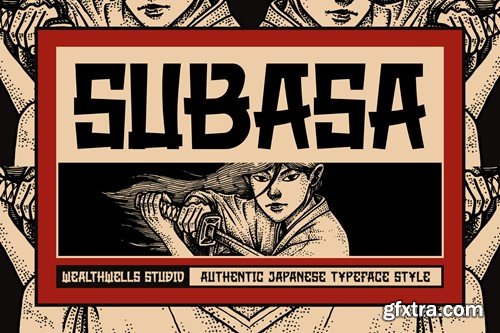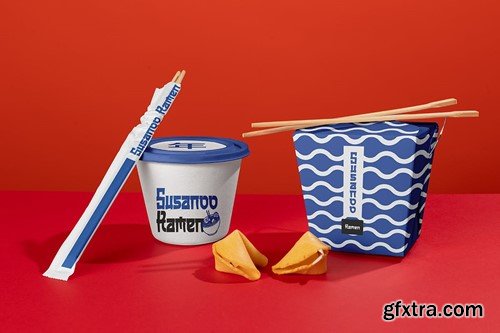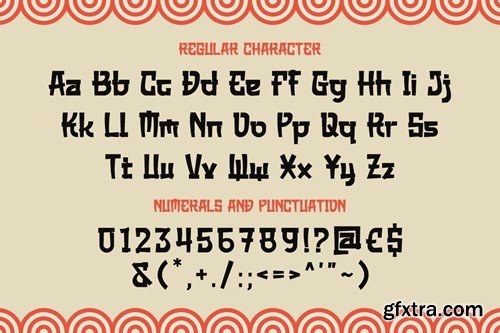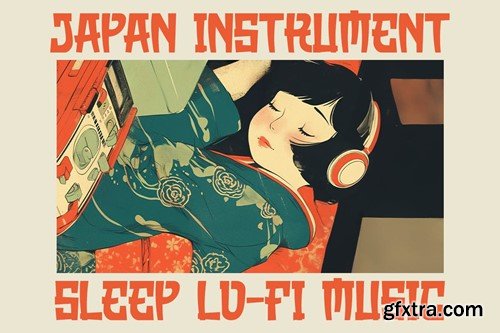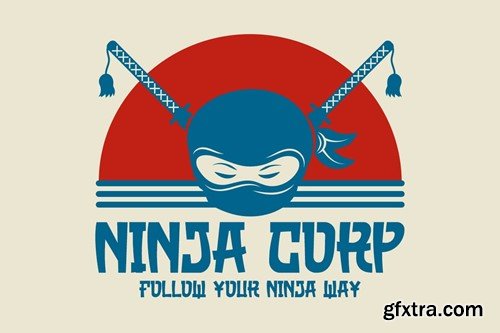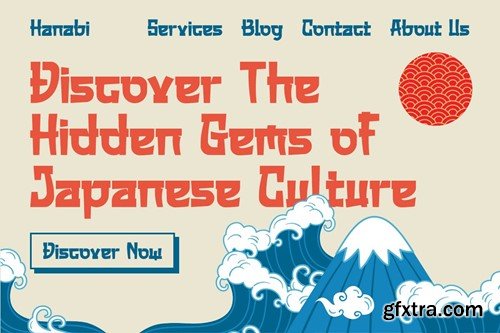
Subasa Modern Japanese Style Font
Subasa Modern Japanese Style Font typeface excellent used for the manufacture quote text, logotype, corporate identities, marketing material, branding and many more. Main Features Thank you